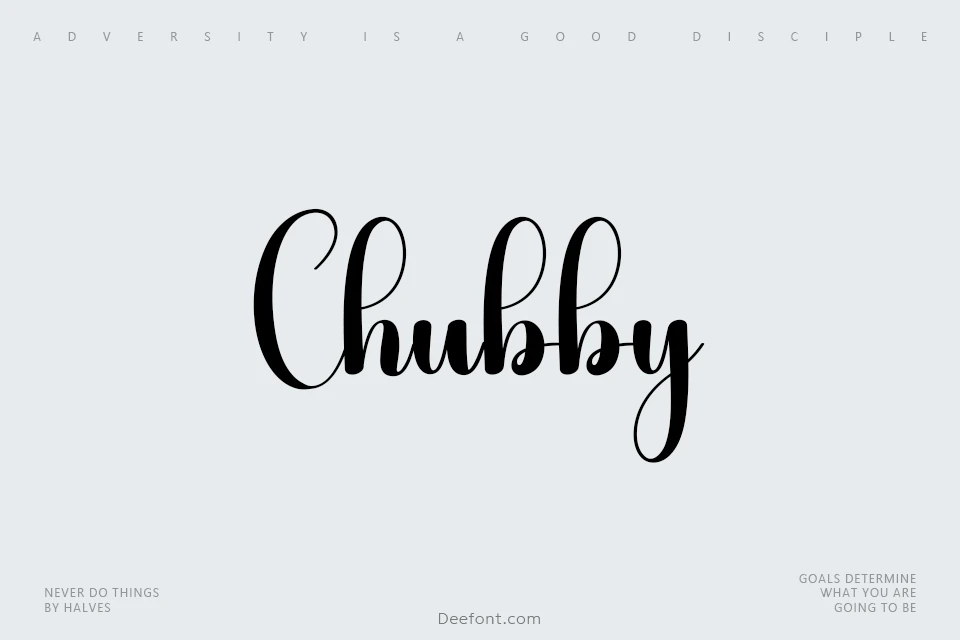
Chubby Font
Chubby Font is a modern, playful script typeface that features bold, rounded letterforms and elegant swashes, making it perfect for eye-catching headlines, branding, logos, invitations, and creative projects. Its friendly and contemporary style brings a touch of warmth and personality to any design, ensuring your typography stands out with charm and sophistication.